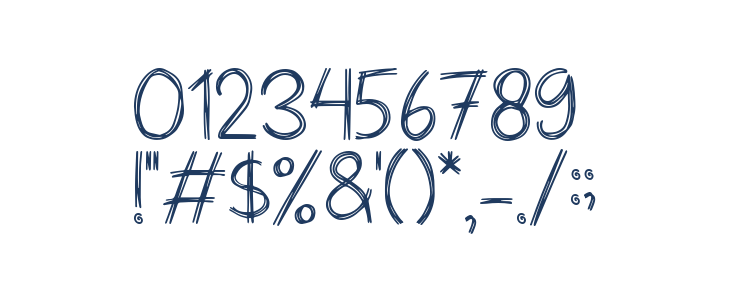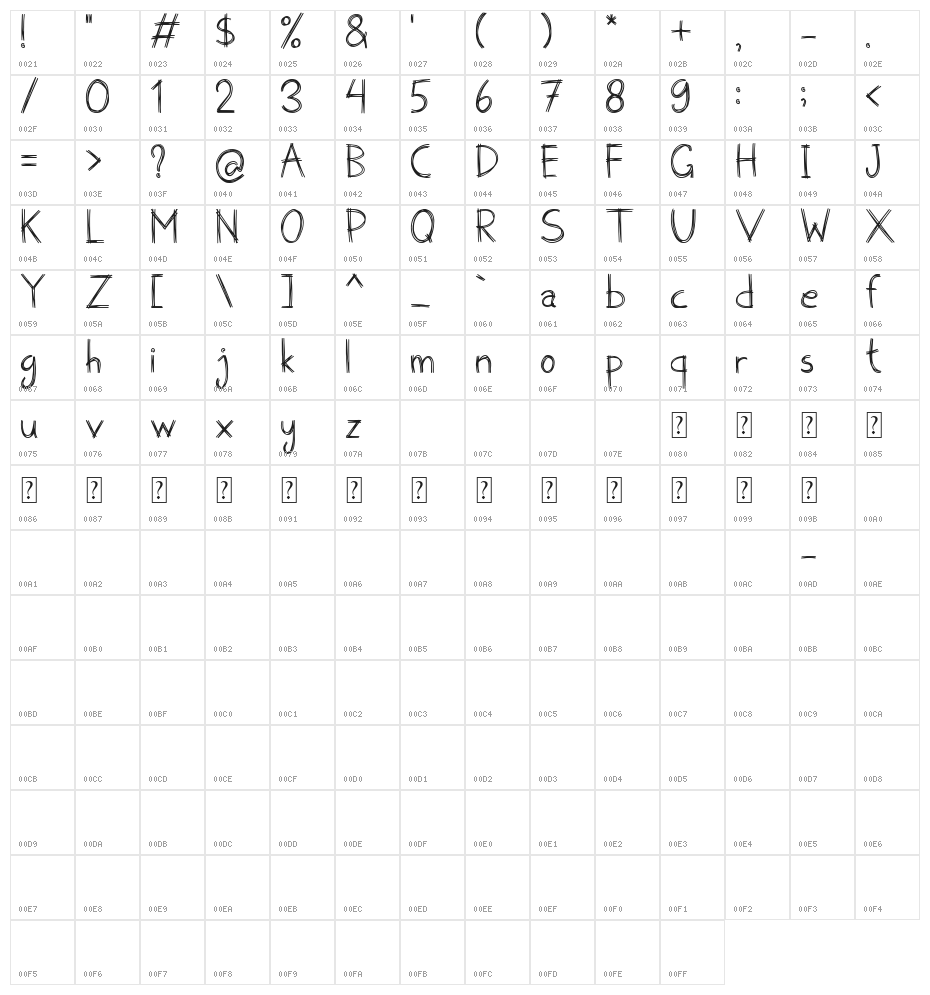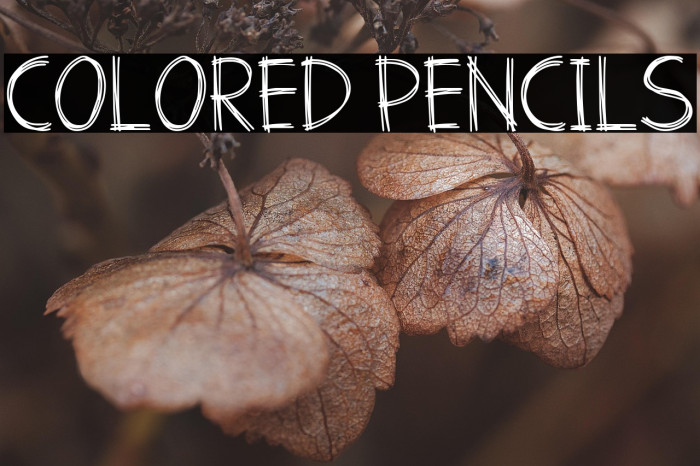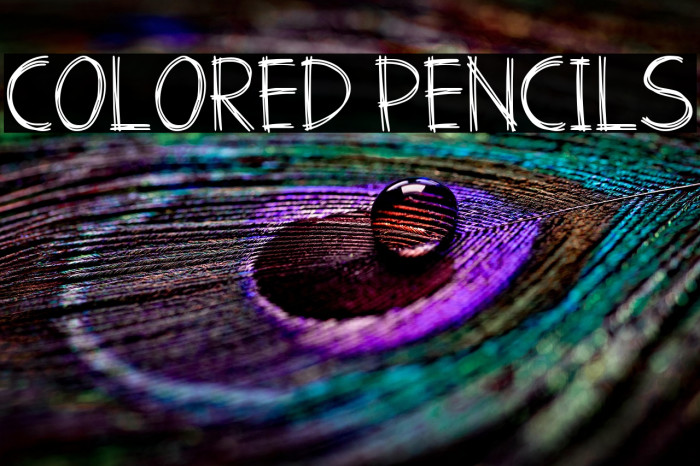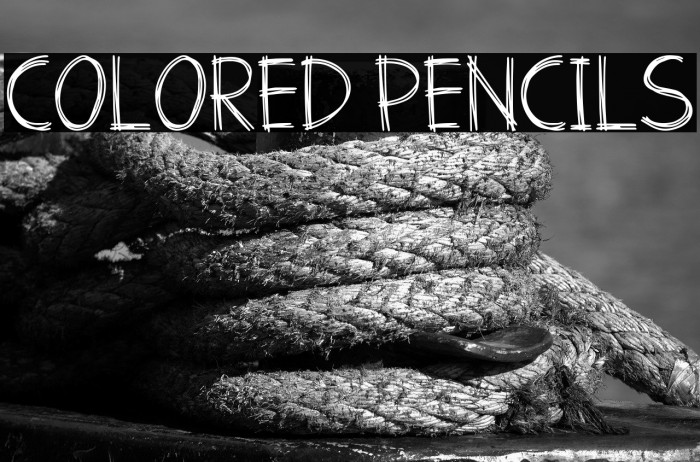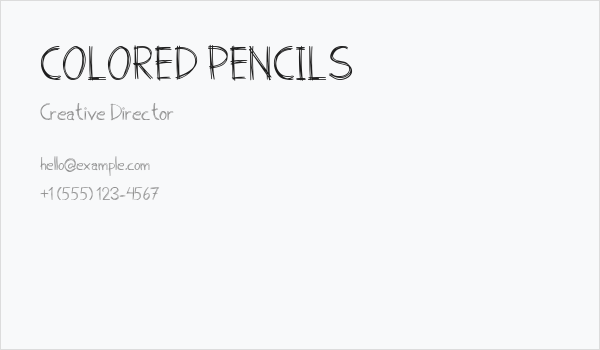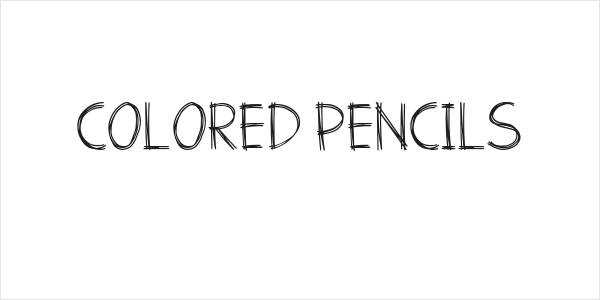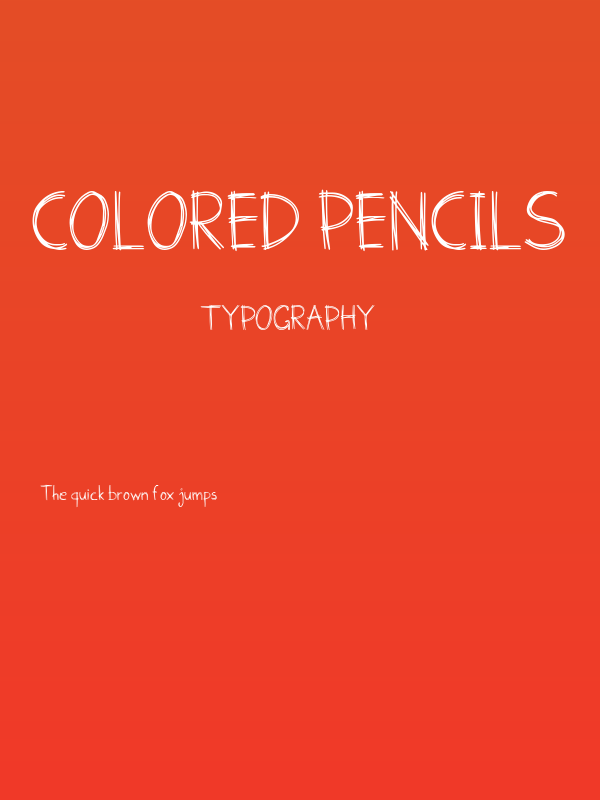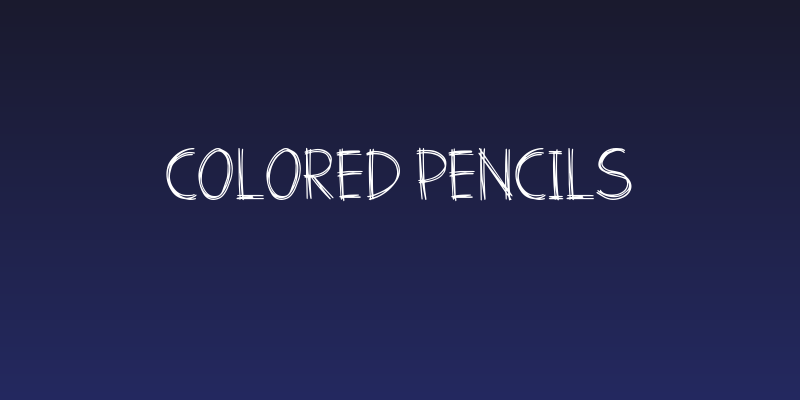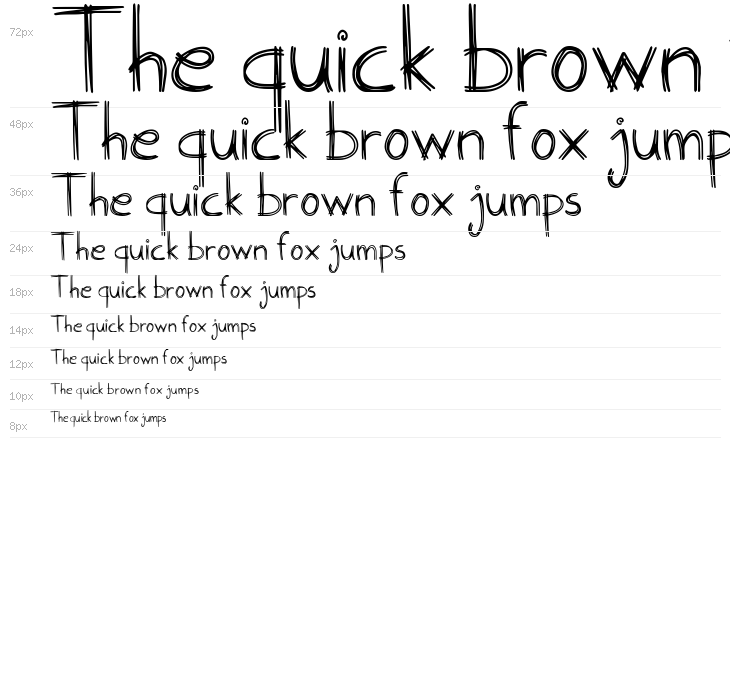
COLORED PENCILS Font
COLORED PENCILS Description
This playful and artistic font features a hand-drawn style that mimics the look of colored pencil sketches. Each character is crafted with a whimsical touch, showcasing uneven lines and a slightly rough texture that adds to its charm. The uppercase and lowercase letters maintain a consistent height, while the numerals and special characters follow the same artistic theme. The font's unique appearance makes it ideal for creative projects that require a personal and informal touch. Its sketch-like quality evokes a sense of creativity and spontaneity, making it perfect for designs that aim to capture a youthful and imaginative spirit.